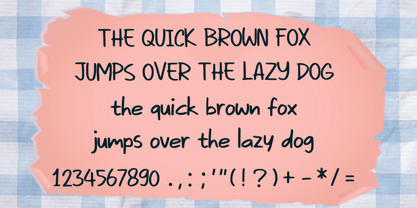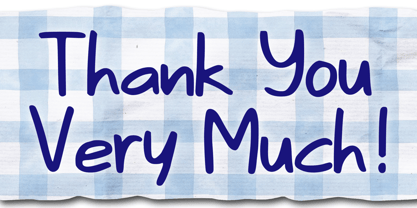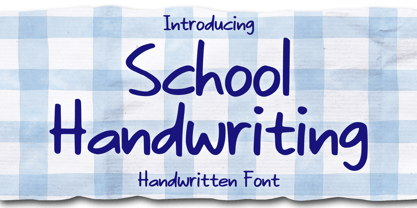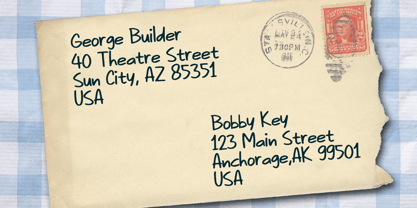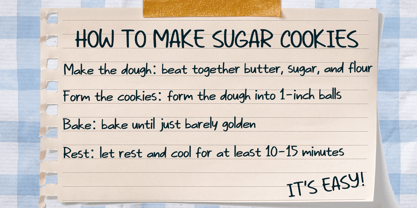
School Handwriting
by Mvmet
The School Handwriting Font Family was designed by Gabriel Valentinus and published by Mvmet. School Handwriting contains 1 styles.
School Handwriting is a fun daily use and suitable for everyday use pen font, suitable for your school projects and more. It will elevate a wide range of design projects to the highest level. You can use this font for many design ideas such as stickers, t-shirt designs, amazing logo designs, magazine or book covers, comics, cartoon drawings, and many more. This font will add a super cool touch to your designs!